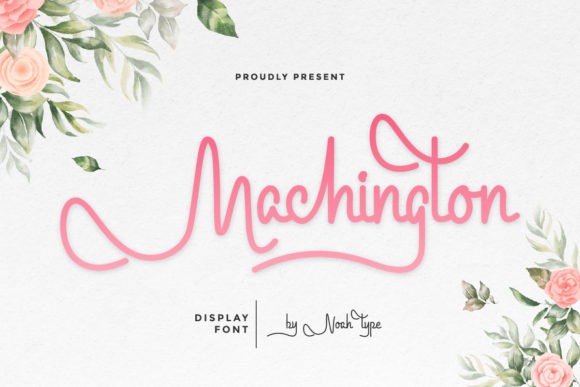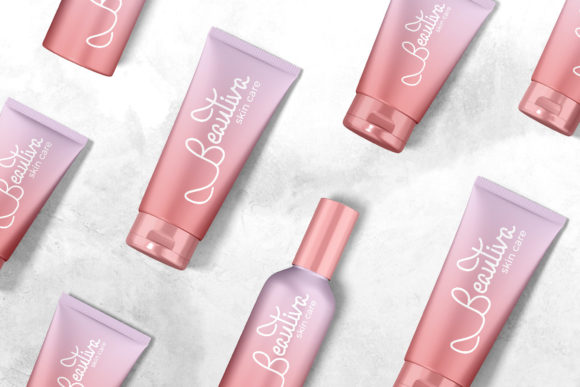
About Machington Font
Machington is a lovely and delicate script font that exudes elegance and class. It will add a distinct spark to any design project that you wish to create! This font is PUA encoded which means you can access all of the amazing glyphs and ligatures with ease!